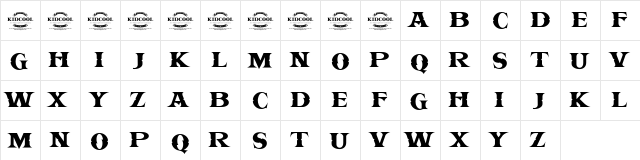
KIDCOOL DRAGON Regular Font Preview
KIDCOOL DRAGON Regular
KIDCOOL DRAGON Regular Font Details
Design Context for KIDCOOL DRAGON Typeface
KIDCOOL DRAGON is a composed and adaptable typeface that performs quietly and consistently across a wide range of design contexts.